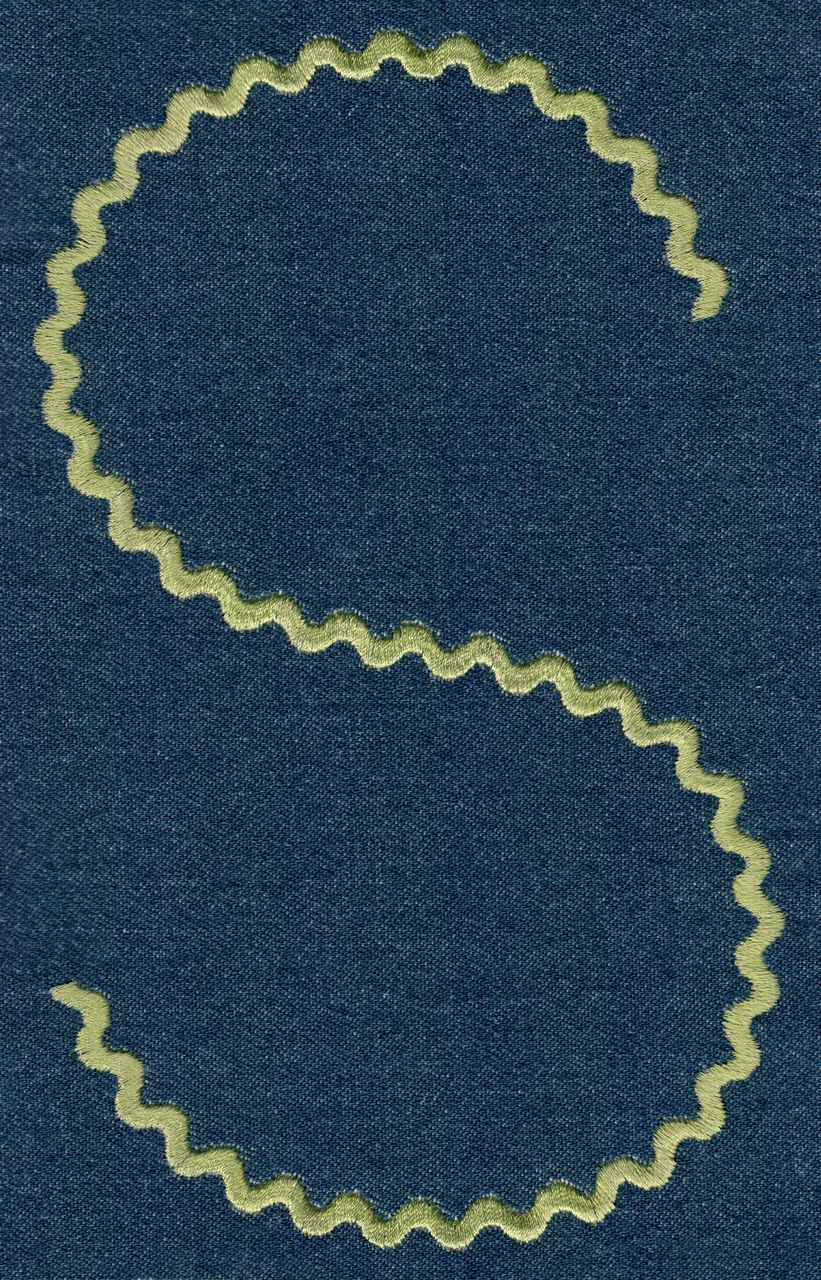
610 Hand Printed Rick Rack Font
Hand Printed Rick Rack Font comes in 4", 5", 6", 7", 8" and 9" heights based on the capital "A". All sizes included in purchase price. All sizes finished in Rick Rack Satin stitch. Includes uppercase letters, lowercase letters, numbers and six punctuation marks.